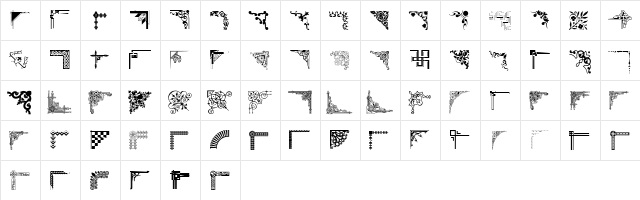
CornPop Regular
Design Context for CornPop Typeface
CornPop is a composed and adaptable typeface that performs quietly and consistently across a wide range of design contexts.